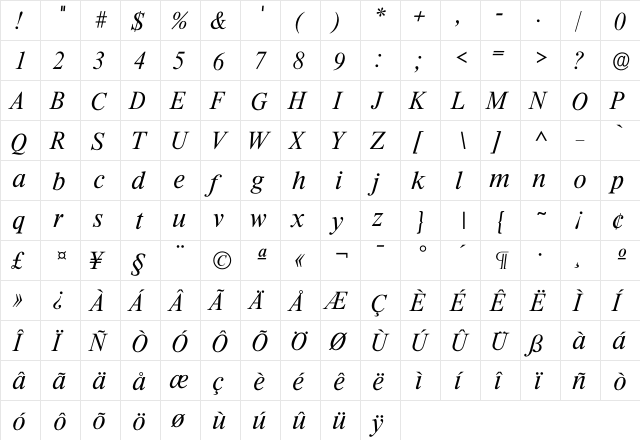
Iriccione Light Font Preview
Iriccione Light
Design Context for Iriccione Typeface
Iriccione takes a measured approach to typography — its balanced proportions and neutral character make it a reliable workhorse for both digital and print work. Its slender proportions lend an understated elegance to any composition.